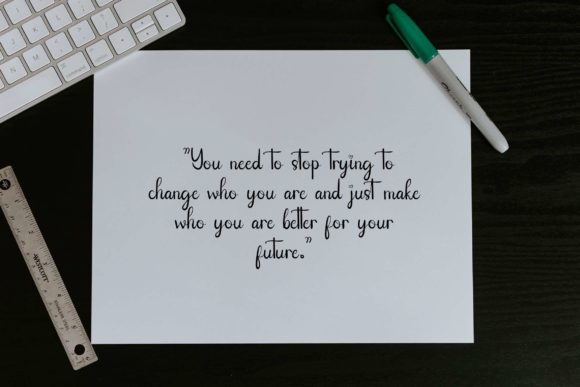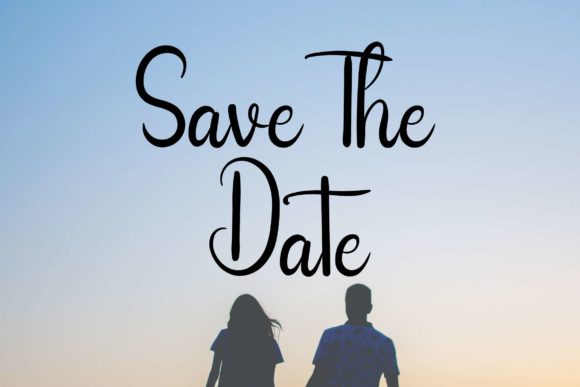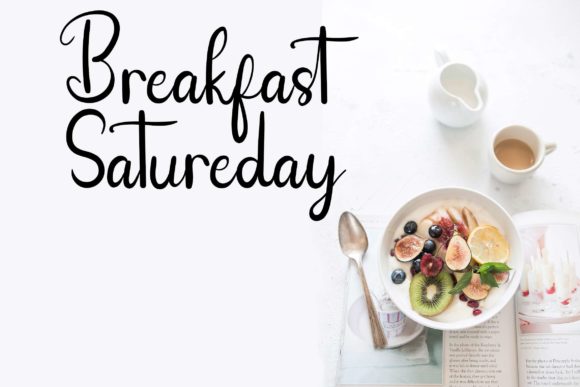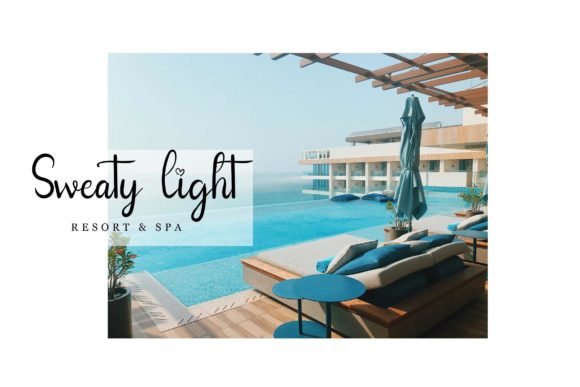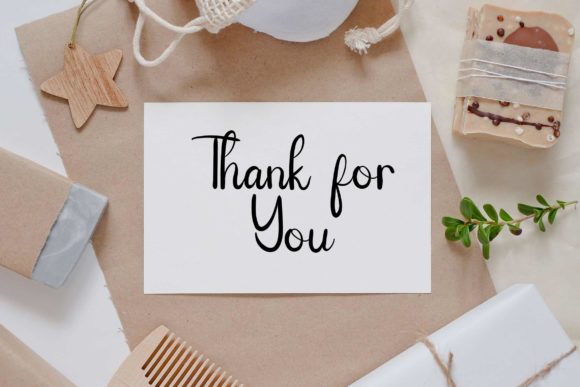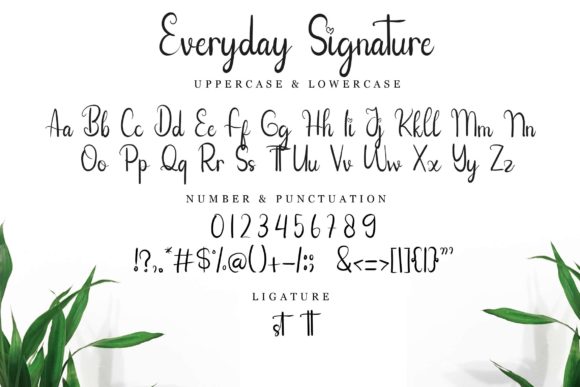
Everyday Signature Font
About Everyday Signature Font
Everyday Signature is a sweet and cursive handwritten font. This gentle font will look gorgeous on a variety of design ideas. It will add a joyful and romantic touch to each of your projects!